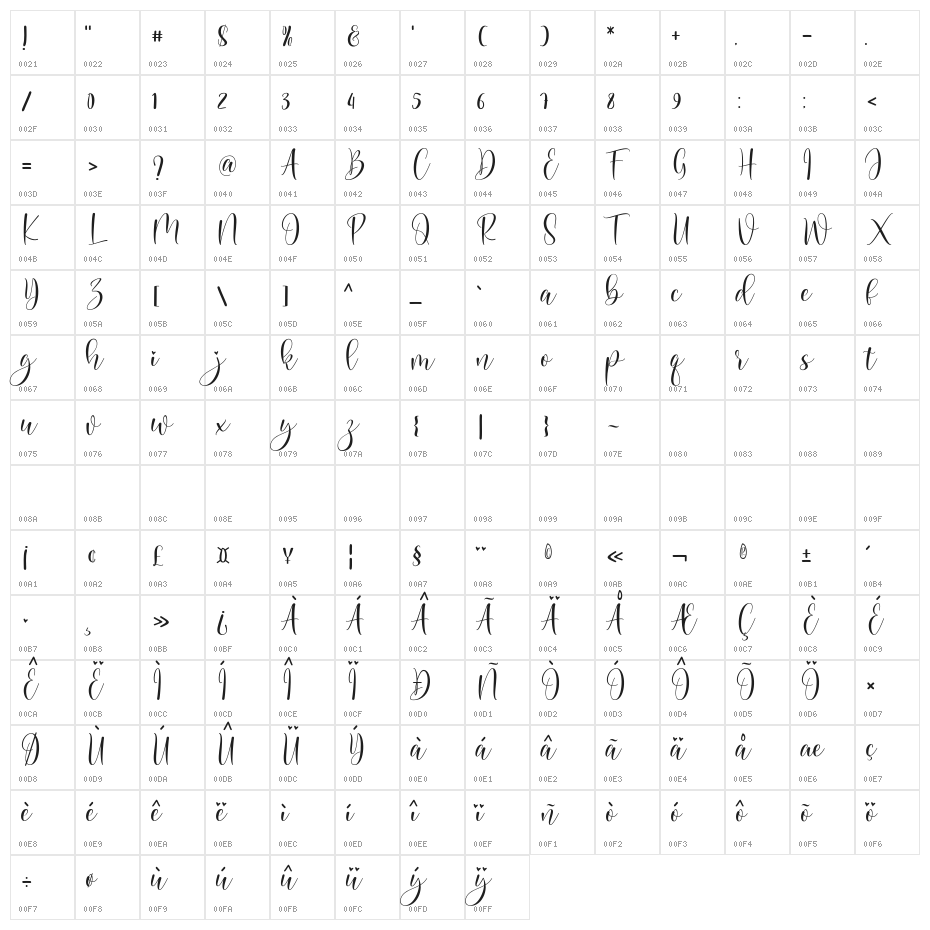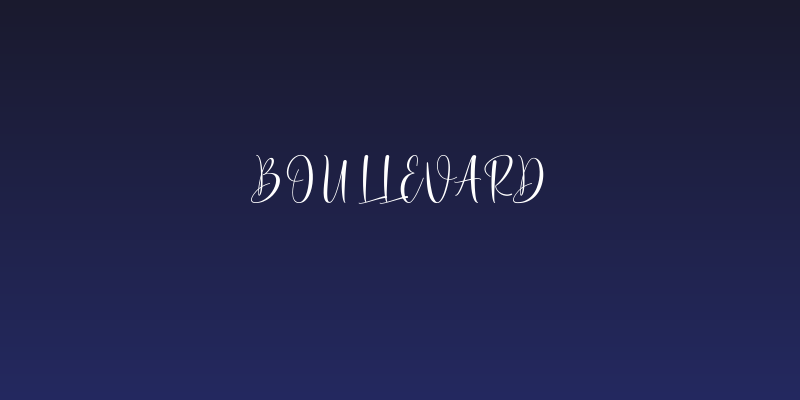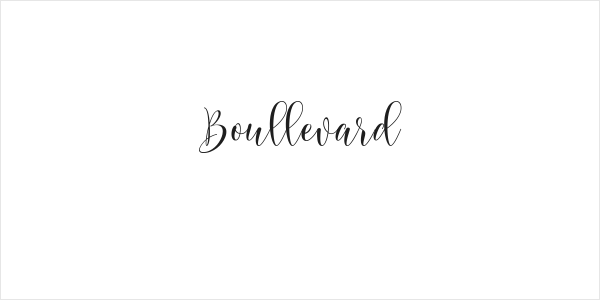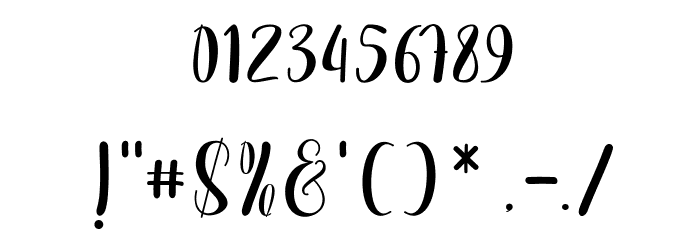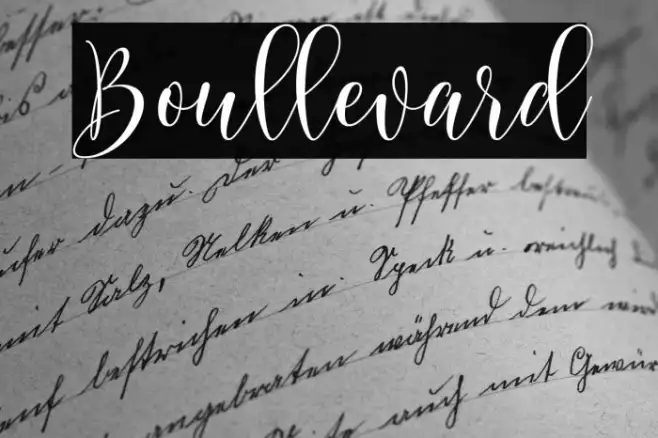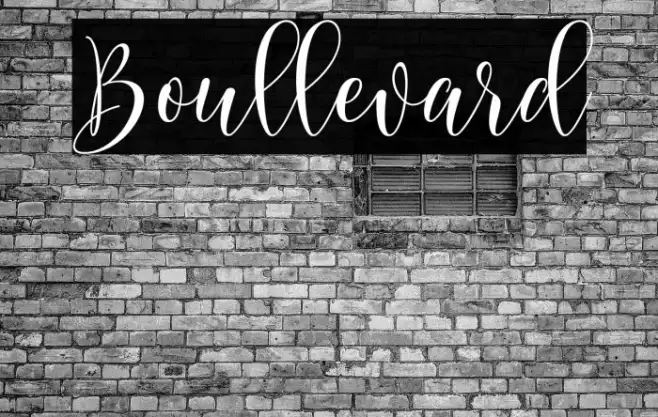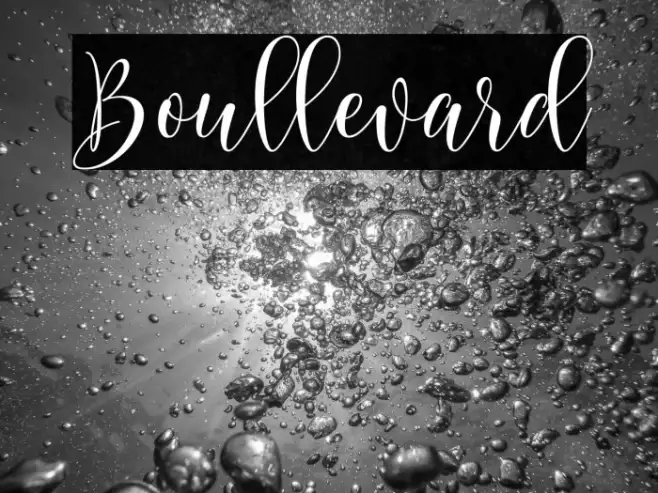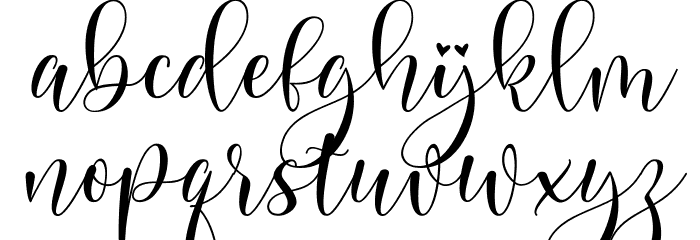
Boullevard Font
Boullevard Description
This font features an elegant and flowing script style, characterized by its smooth, cursive letterforms that exude a sense of sophistication and grace. The uppercase letters are tall and slender, with sweeping curves and delicate loops that add a touch of flair. The lowercase letters maintain a consistent flow, with some characters extending into graceful swashes, enhancing the overall aesthetic. The numerals are designed to complement the script style, maintaining readability while retaining the font's decorative nature. Special characters are thoughtfully integrated, ensuring versatility in various design contexts. This font's artistic quality makes it suitable for projects that require a personal and refined touch.
| Proposed Projects | Ideal for wedding invitations, greeting cards, branding, and elegant packaging designs. |